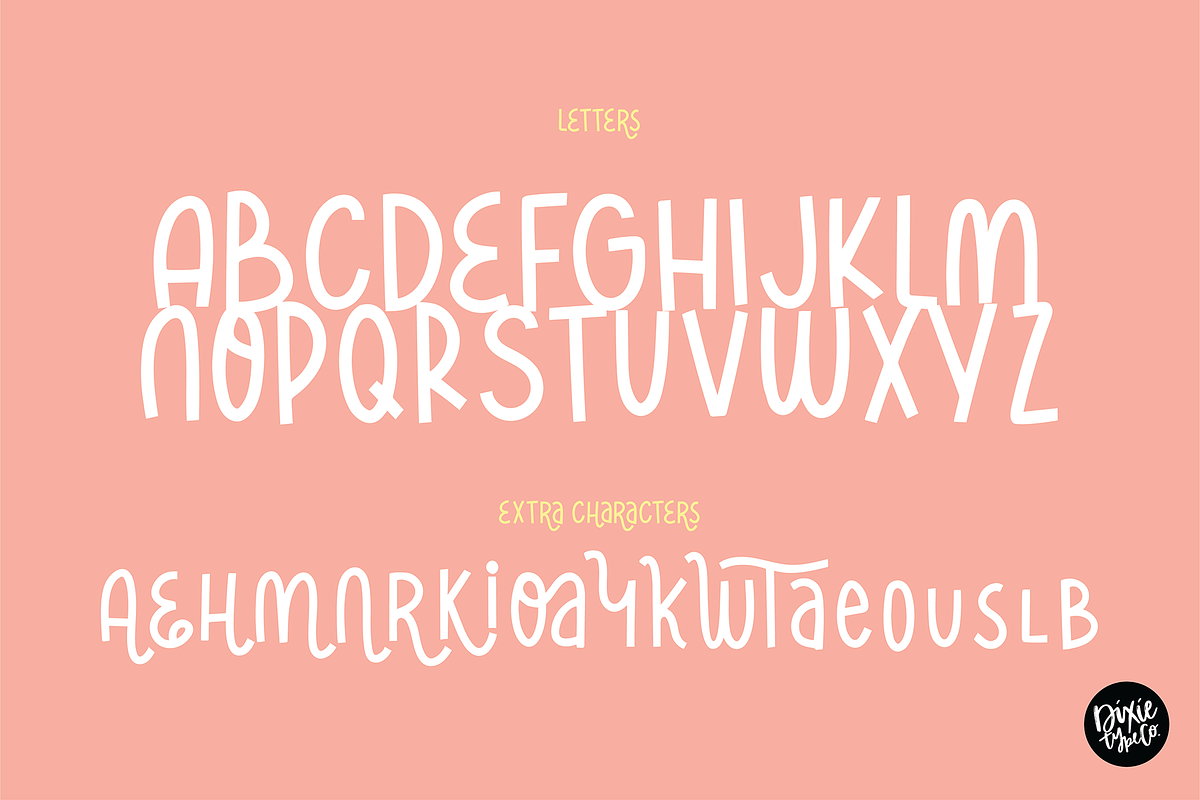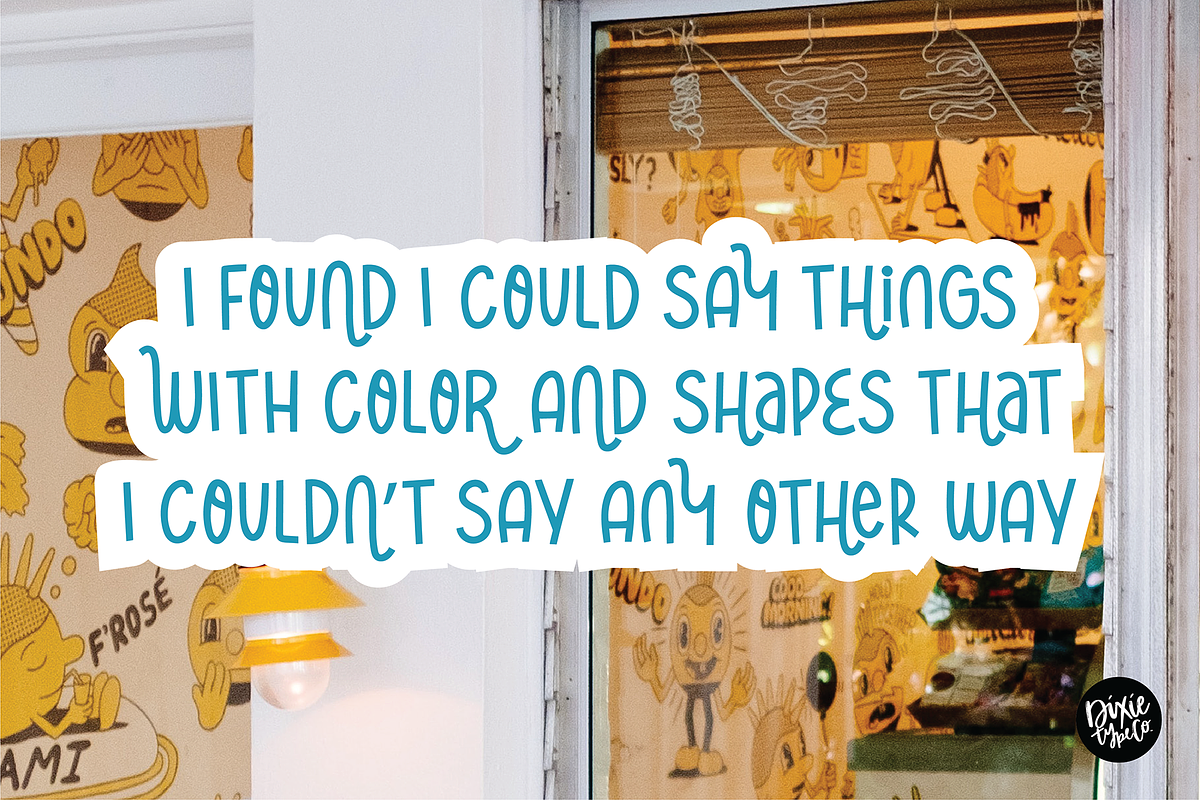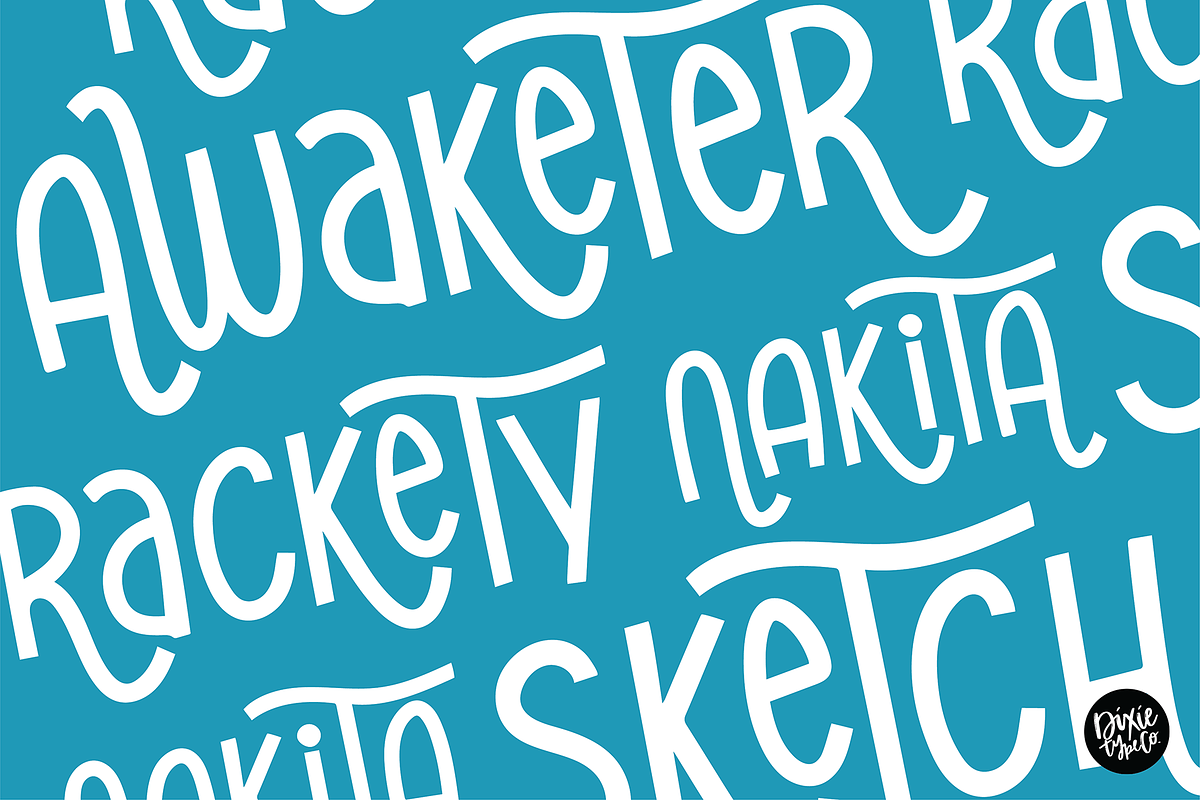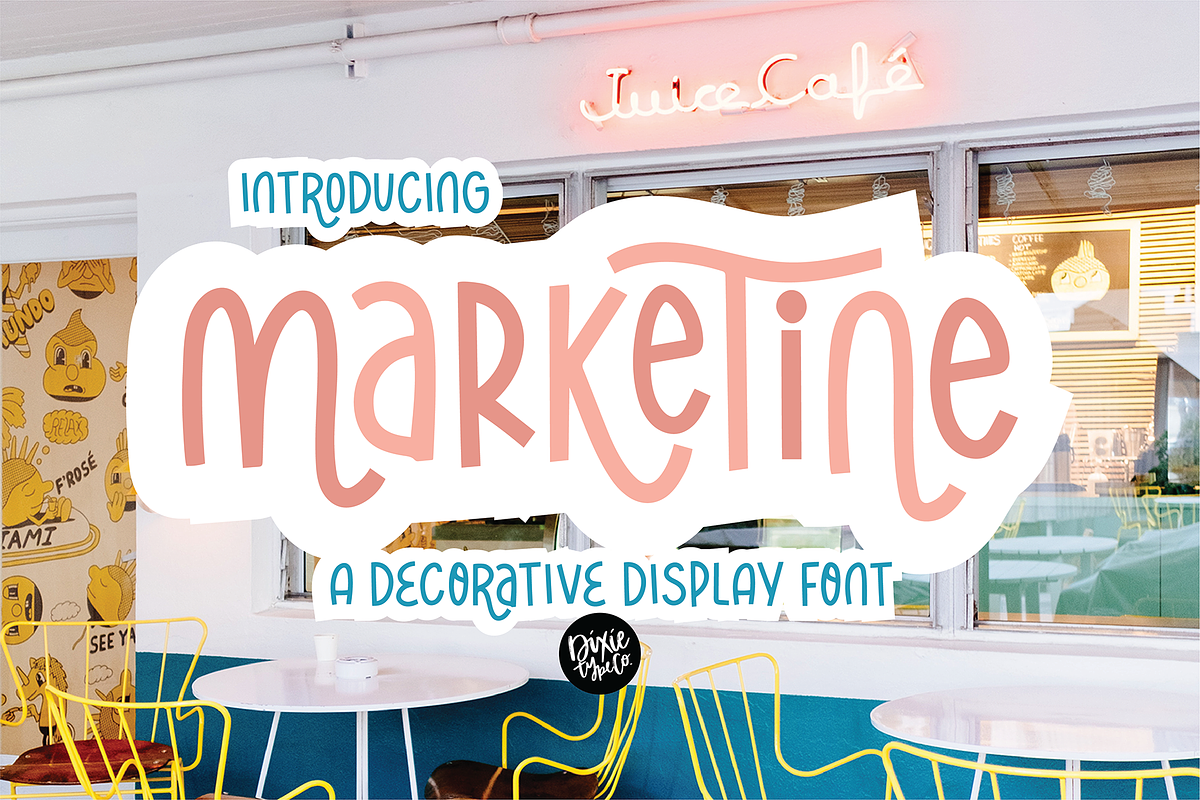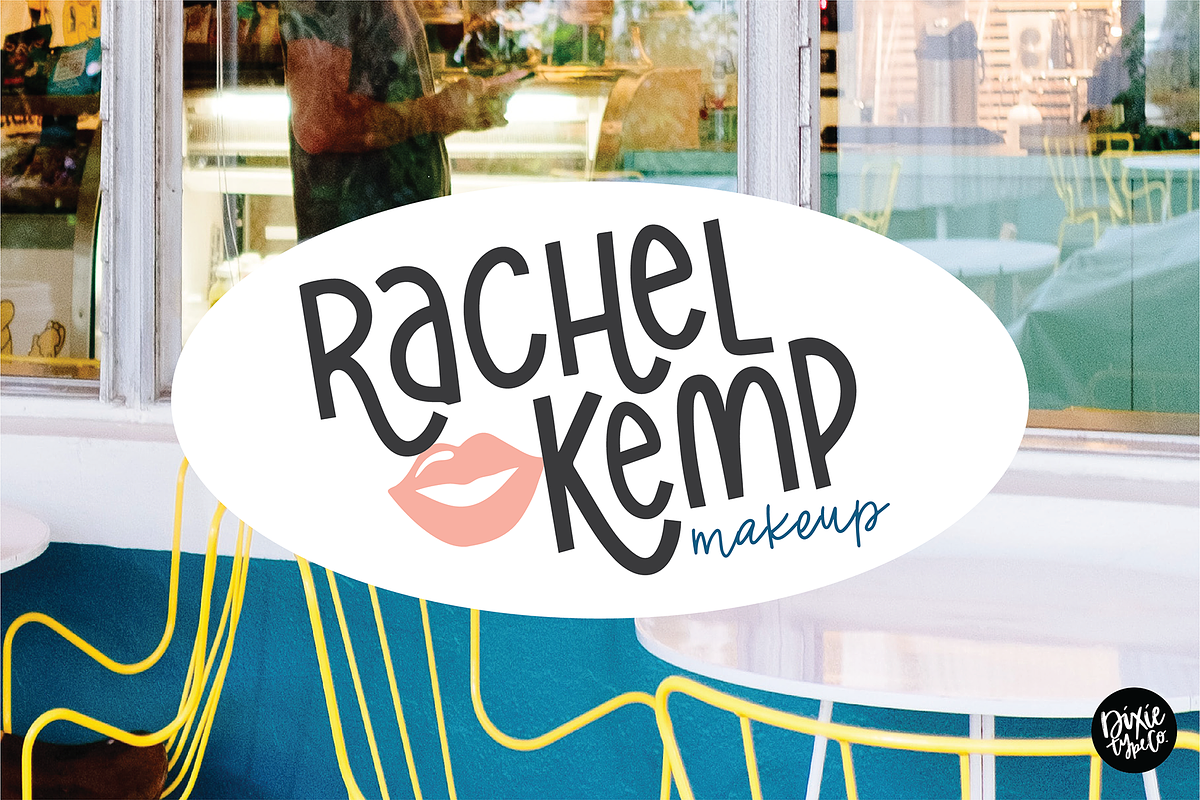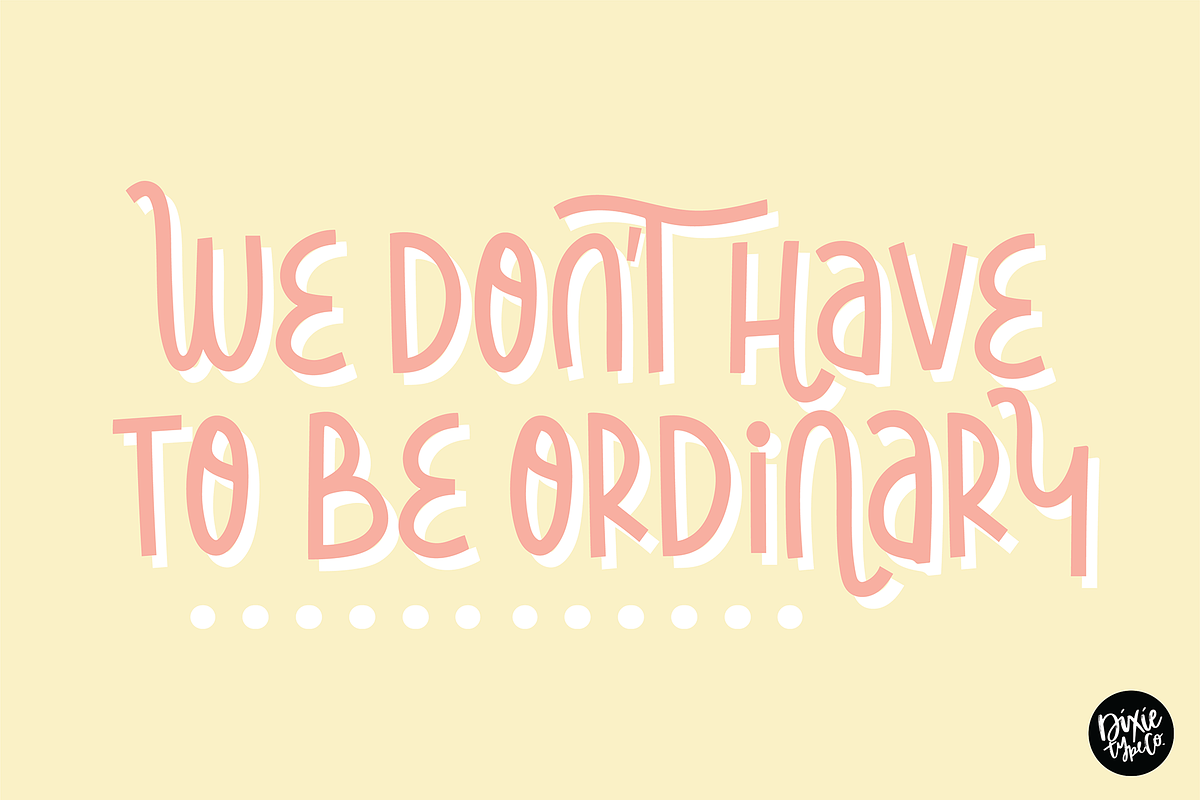
MARKETINE a Trendy Display Font
"Marketine" hand lettered installable font. { A typographic font hand lettered with love by Dixie Type Co. }
"Marketine" is unique, bold, decorative font. This works great as a display or monogram text. Use it for party invitations, advertisements, IG posts, logos, etc.! This font has a lot of personality and is sure to spice up your projects!